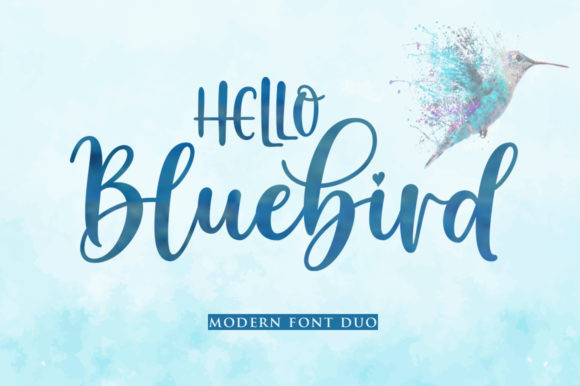
Hello Bluebird Font
Hello Bluebird is a fresh & modern duo font (script and sans serif). is defined by smooth curves and is perfect for fashion branding or editorial designs. Add it confidently to your projects, and you will love the results.